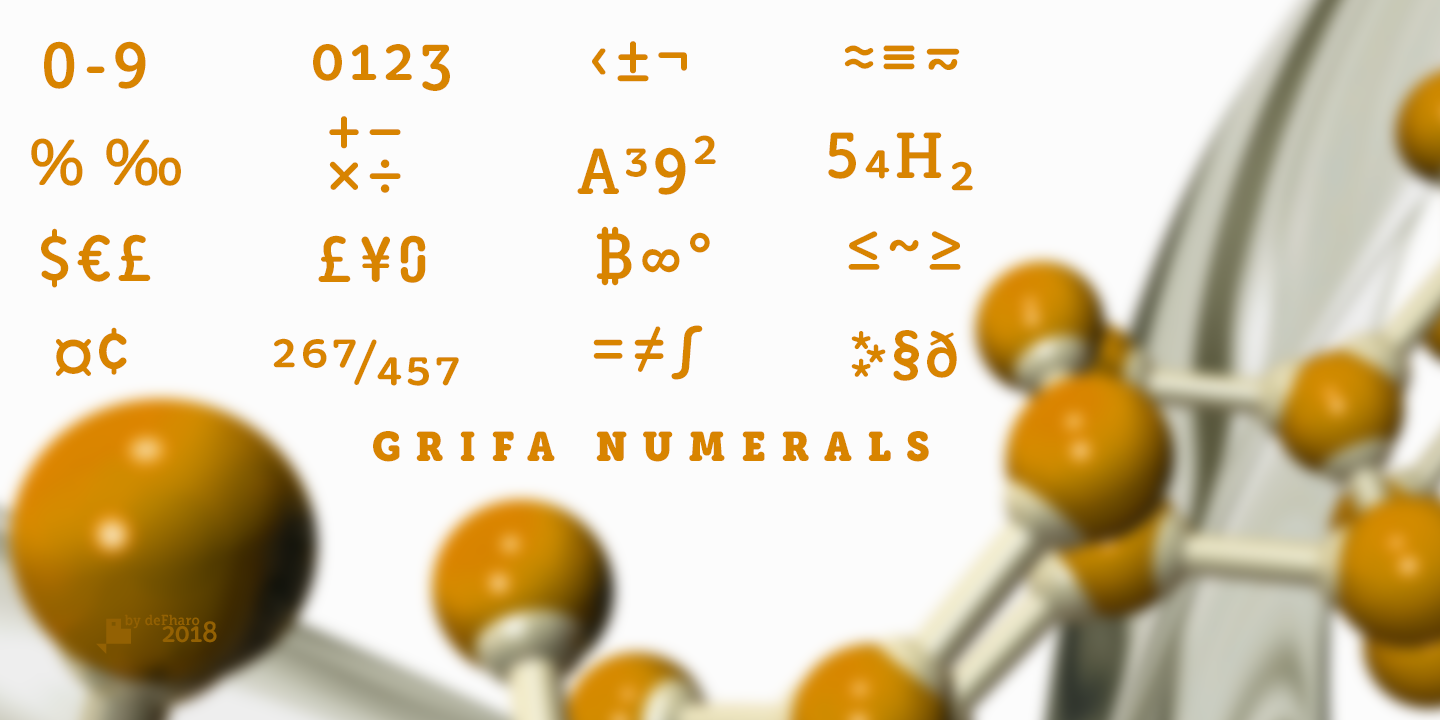
Grifa Slab Font is perfect for newspaper headlines, magazine layouts, corporate branding, architectural signage, book covers, editorial design, poster creation, website headers, business presentations, and modern logo design. This versatile slab serif typeface combines contemporary sophistication with timeless readability for professional applications.
What makes Grifa Slab Font exciting is its bold geometric structure that delivers powerful visual impact while maintaining exceptional legibility. The font features strong slab serifs, clean lines, and balanced proportions that create a commanding presence on any medium. Its modern interpretation of classic slab serif design makes it perfect for both traditional print media and cutting-edge digital applications, offering designers the flexibility to create authoritative and trustworthy visual communications.
The Grifa Slab Font family includes light, regular, medium, bold, and black weights, along with their corresponding italic versions. This comprehensive range provides designers with extensive typographic flexibility, allowing seamless hierarchy creation and dynamic text combinations across various design contexts.
Elevate your professional projects with Grifa Slab Font Free Download and experience the perfect balance of strength and sophistication. This meticulously crafted typeface offers exceptional performance across all media formats, from small text applications to large display uses. The font's extensive language support and OpenType features ensure seamless integration into international design workflows. Whether you're creating corporate identities, editorial layouts, or digital interfaces, this font delivers the reliability and visual authority that modern design demands.